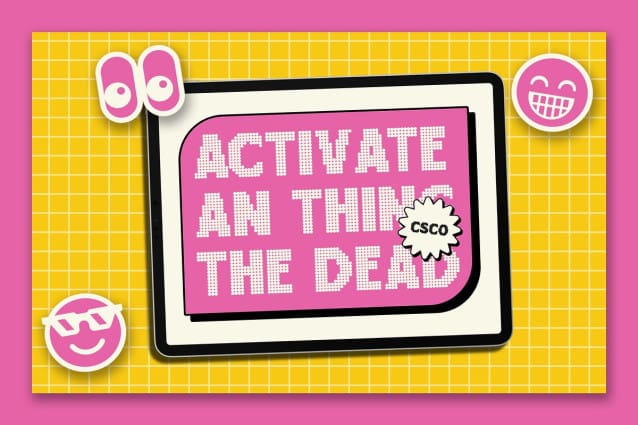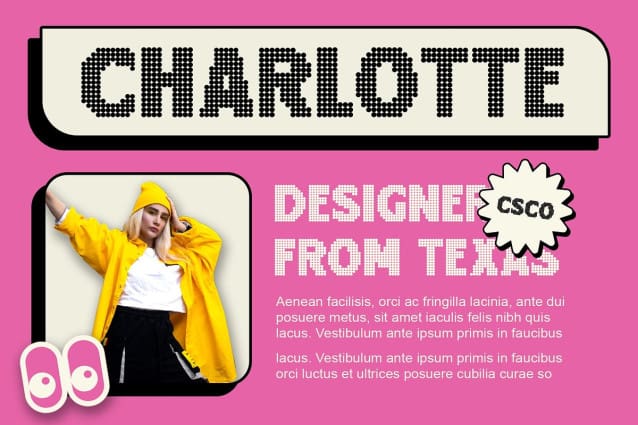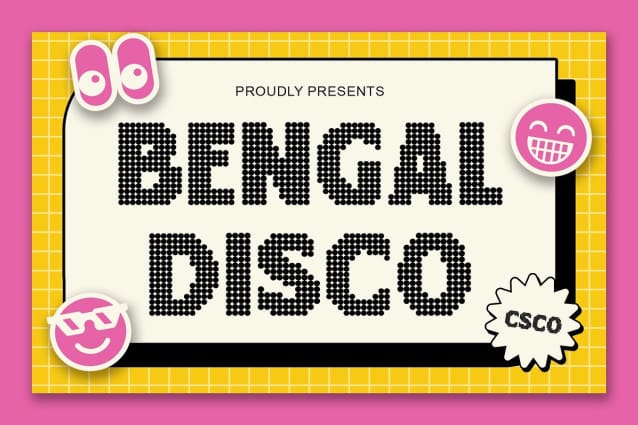
Bengal Disco Font
Bengal Disco Font is a retro-style sans-serif font that pulsates with disco vibes, featuring dots that add a rhythmic flair to your designs. Its unique style brings a touch of nostalgia to your projects, making them stand out with a groovy and captivating presence.
Ideal for Eye-catching Displays Designed to dazzle, Bengal Disco is perfect for headlines, banners, and other display purposes. Its disco-inspired dots and retro-style sans-serif font ensure that your message is both seen and remembered.
Versatile and Dynamic Despite its retro theme, Bengal Disco is versatile and dynamic. Its dotted design makes it suitable for a wide range of projects, from branding to editorial design, where a font with character and charm is essential for making a statement.
Perfect for Adding a Vintage Touch Bengal Disco is ideal for projects that require a font with a vintage touch. Whether you’re designing a poster, logo, or website, this font will undoubtedly add a unique and memorable element to your designs.